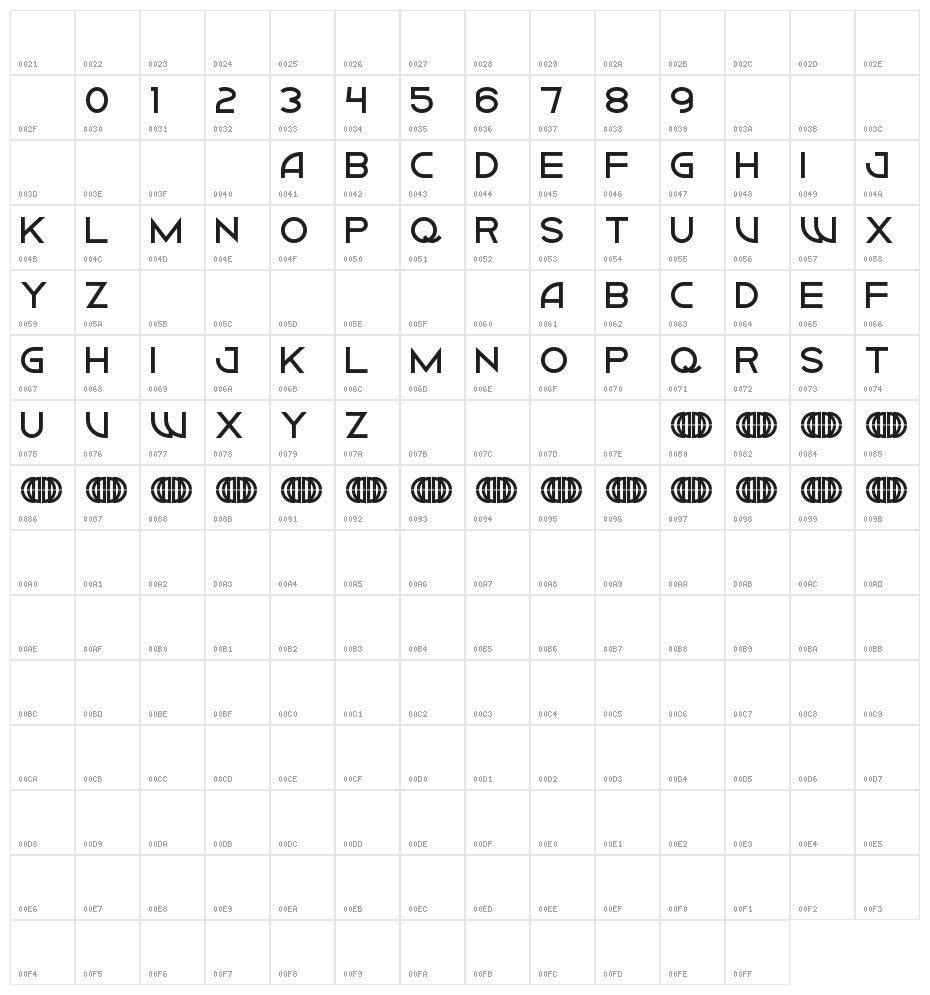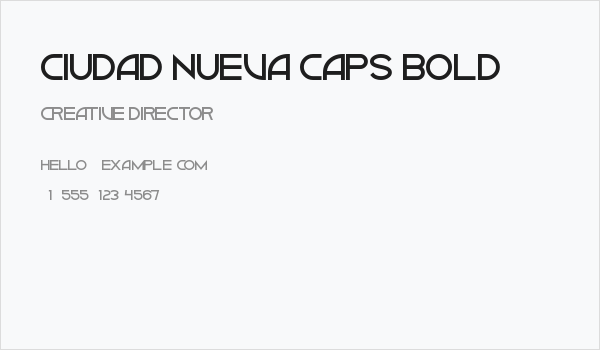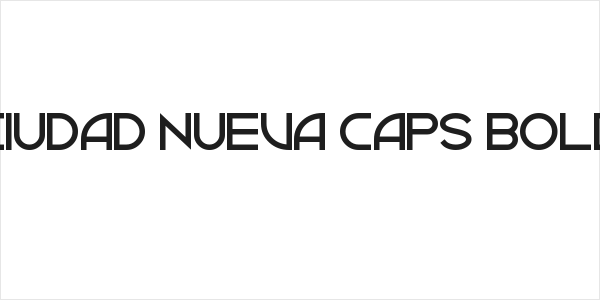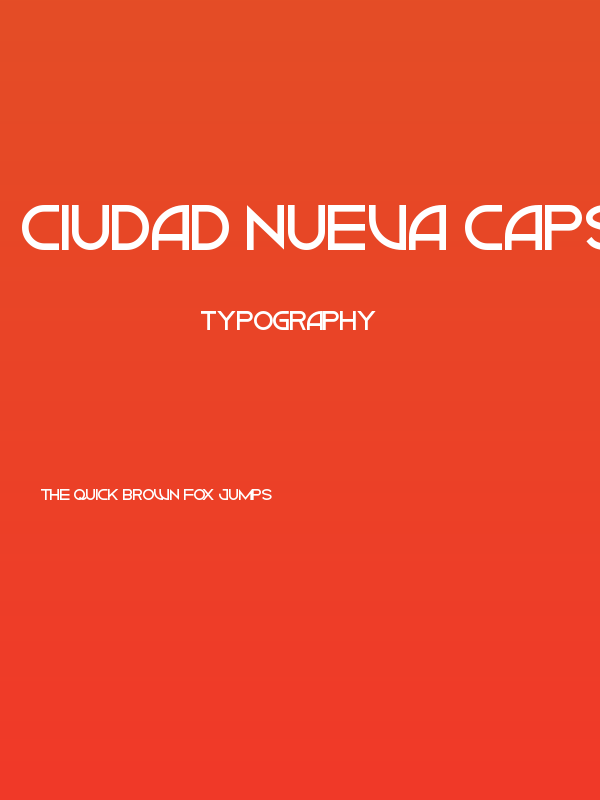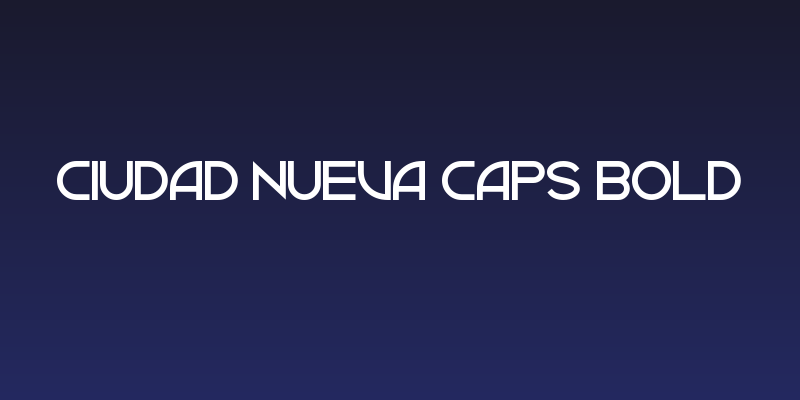
Ciudad Nueva CAPS Bold Font
Ciudad Nueva CAPS Bold Description
This font features a bold and geometric design with a modern flair. The characters are constructed with clean lines and a uniform stroke width, giving it a strong and assertive appearance. The uppercase letters are particularly striking, with unique angular cuts and rounded elements that add a touch of sophistication. The numbers follow the same design principles, ensuring consistency across all characters. This font is ideal for making a bold statement in any design project, offering a contemporary and stylish look.